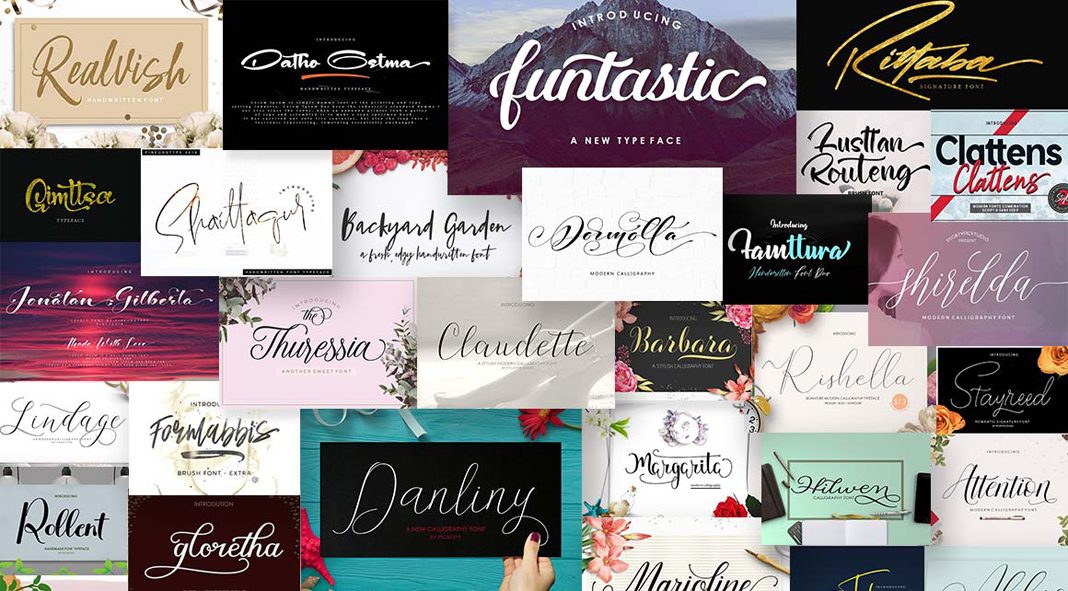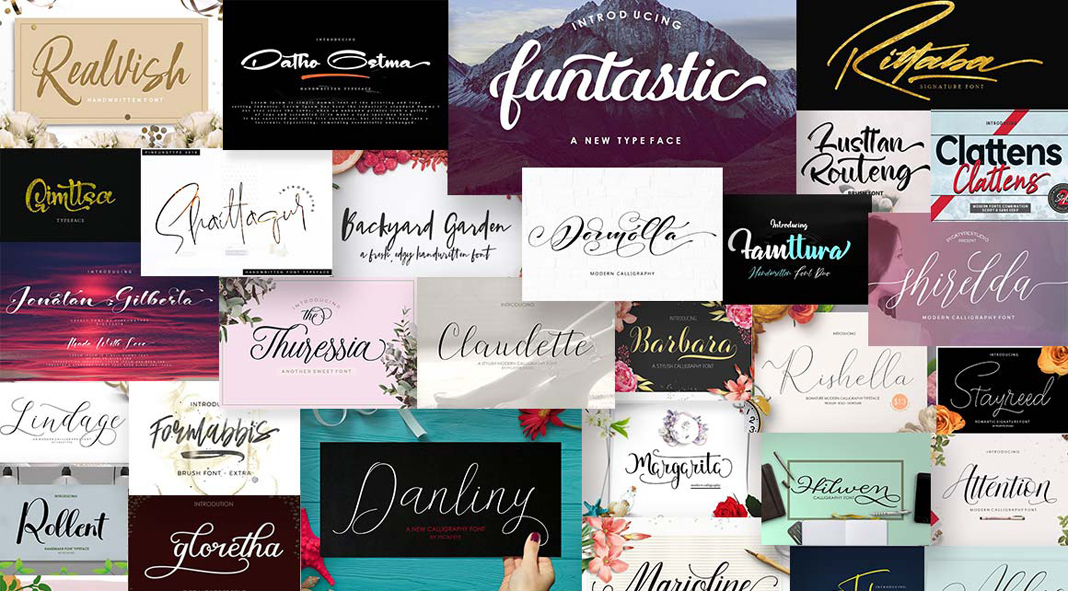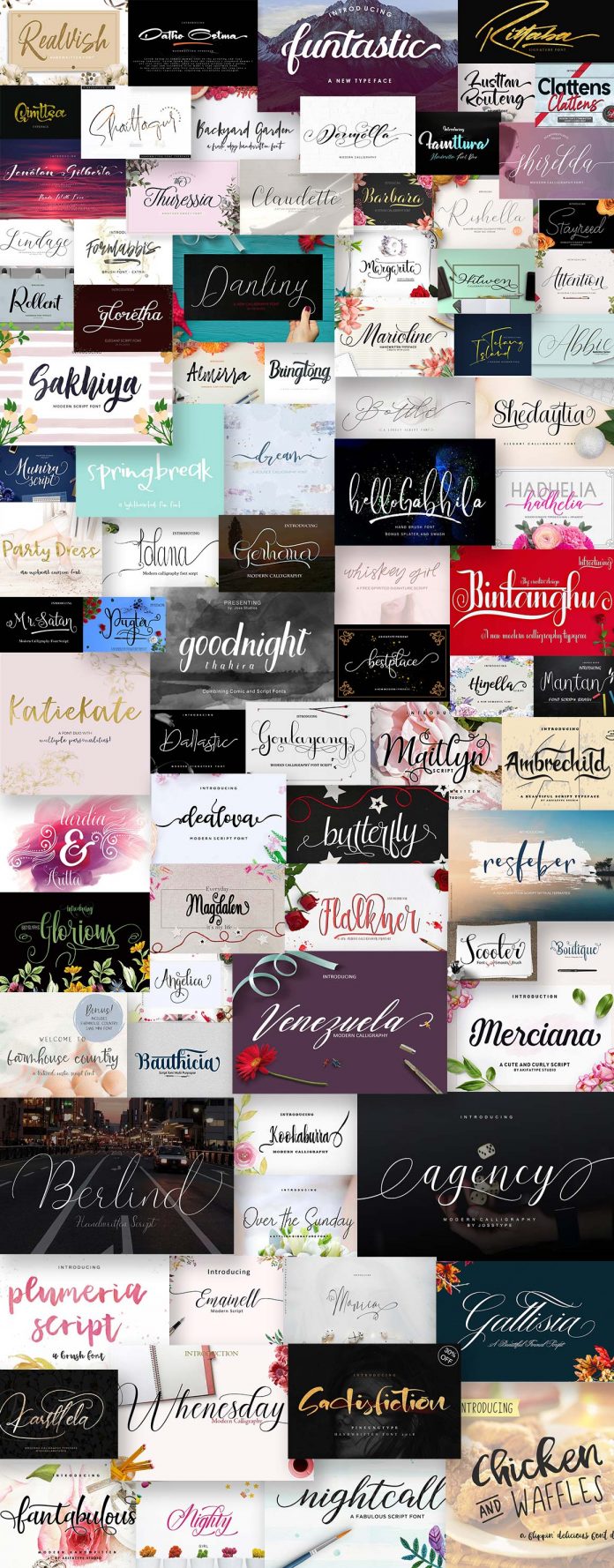
The best script fonts you seek are included in the Grandiose Script fonts bundle. It is the best choice for a variety of typographic projects. The Grandiose Script fonts bundle has sporting 84 font families consisting of 130 lovely fonts in total. The types of fonts you get in this bundle are quite different to offer a great variety of typefaces that suit your artistic thirst.
You can use these fonts for posters, advertisements, invitations, greeting cards, logos, and other designs as you wish. The Grandiose Script fonts bundle is perfect for all of them! Another juicy feature you’ll get from this bundle is the great number of typographic features such as alternate characters, swashes, ornaments, ligatures, and many more. Find out more below or click on the following link to grab this amazing deal.